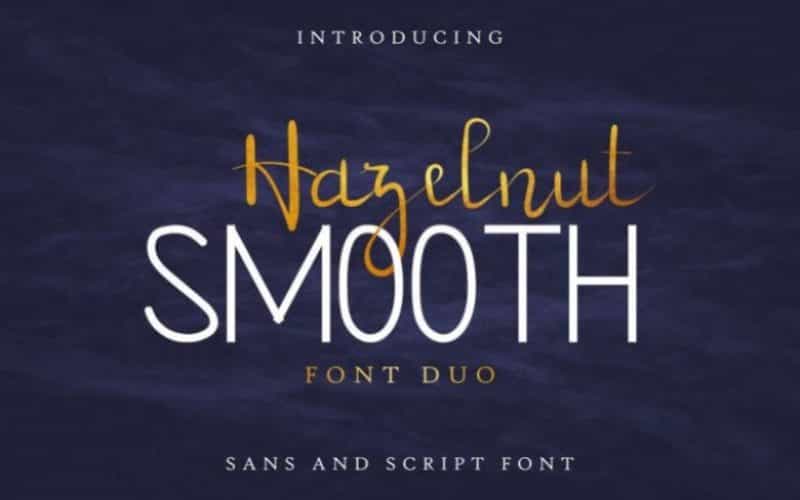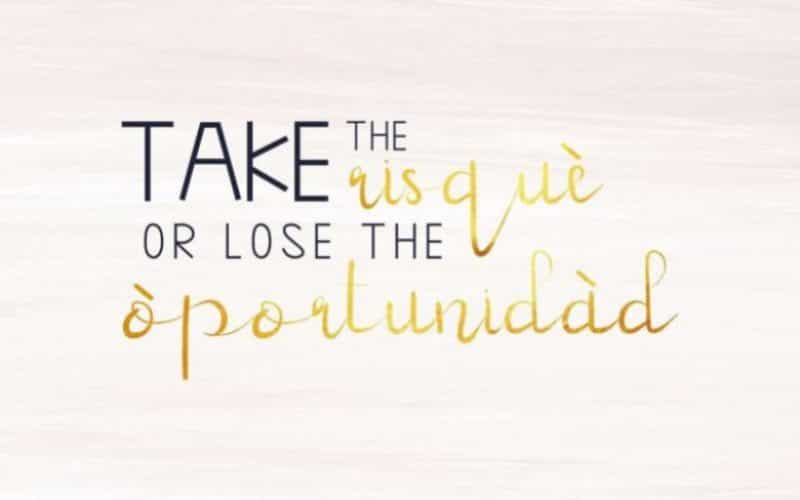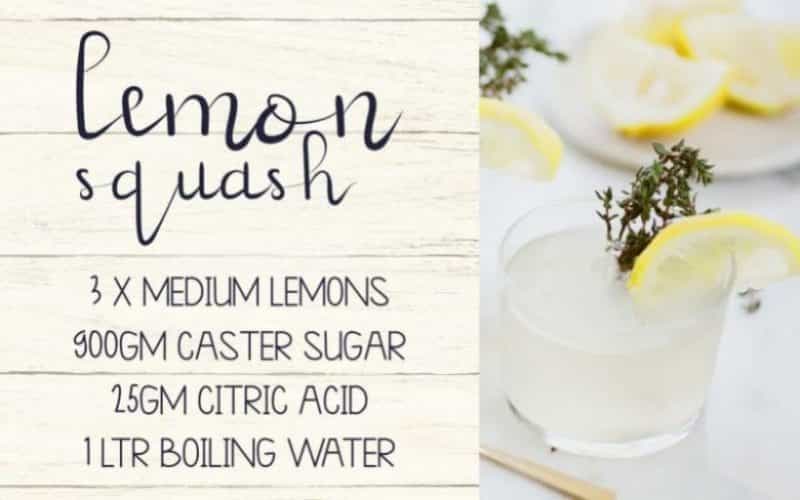
Discover Hazelnut Smooth Handwritten Font, part of the Commercial Sans Serif Handwritten collection—a versatile and unique font perfect for adding a personal touch to your projects. Download it for free and enjoy crafting designs with style, from invitations to social media posts. This font is available exclusively for personal use, giving you the freedom to create without limits. Unlock your creativity with Hazelnut Smooth Handwritten Font today!
Today, EdricStudio is going to present one of our latest fonts which we have crafted from our studio. Please welcome : The Hazelnut Smooth Font Duo. This new font is a Font Duo family, which has two different style font : Without Serif and Script Writing. You can go through a lot of industries and designs categories with these two styles.